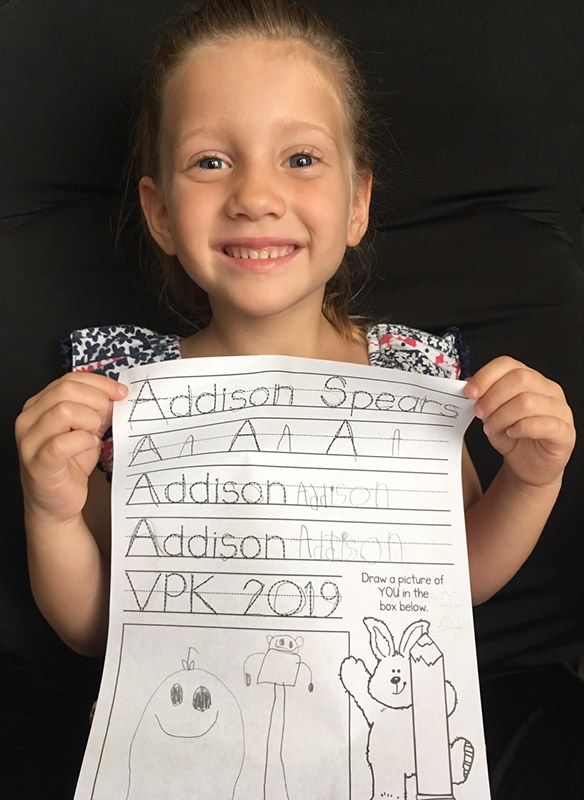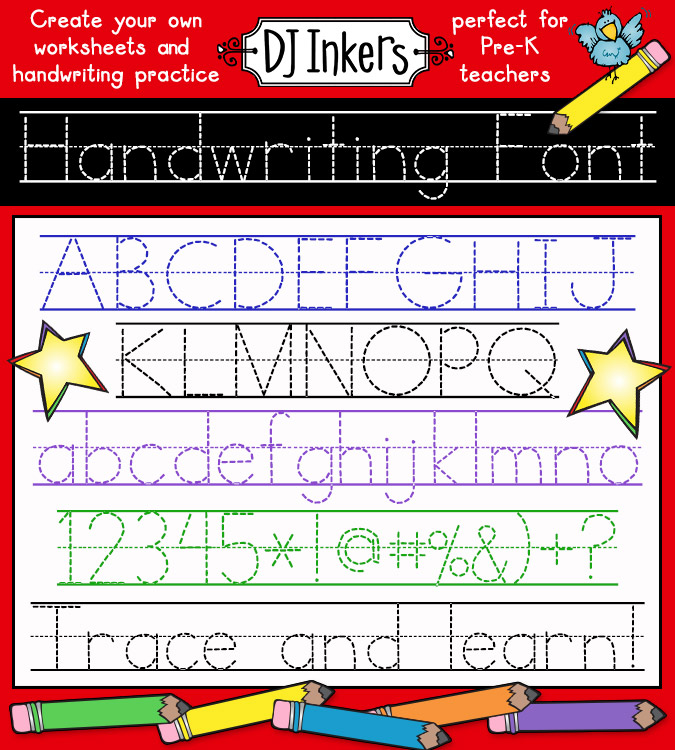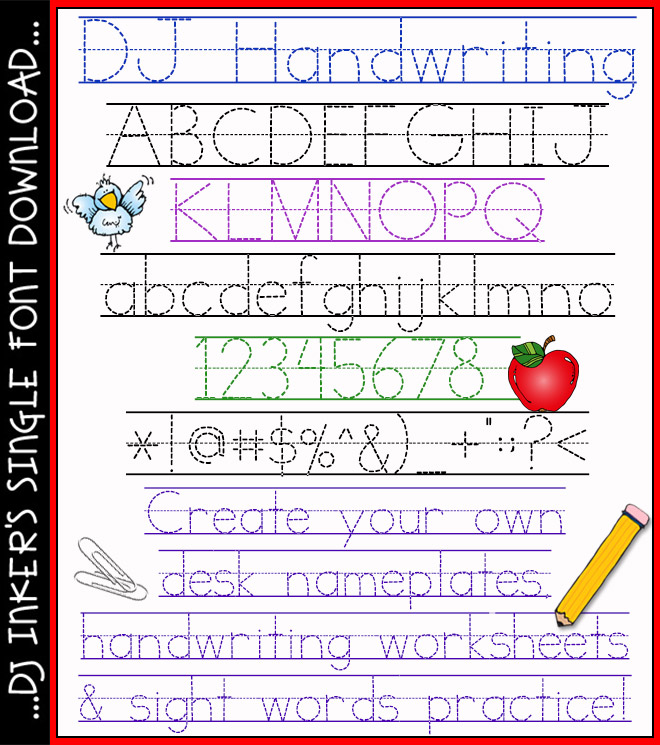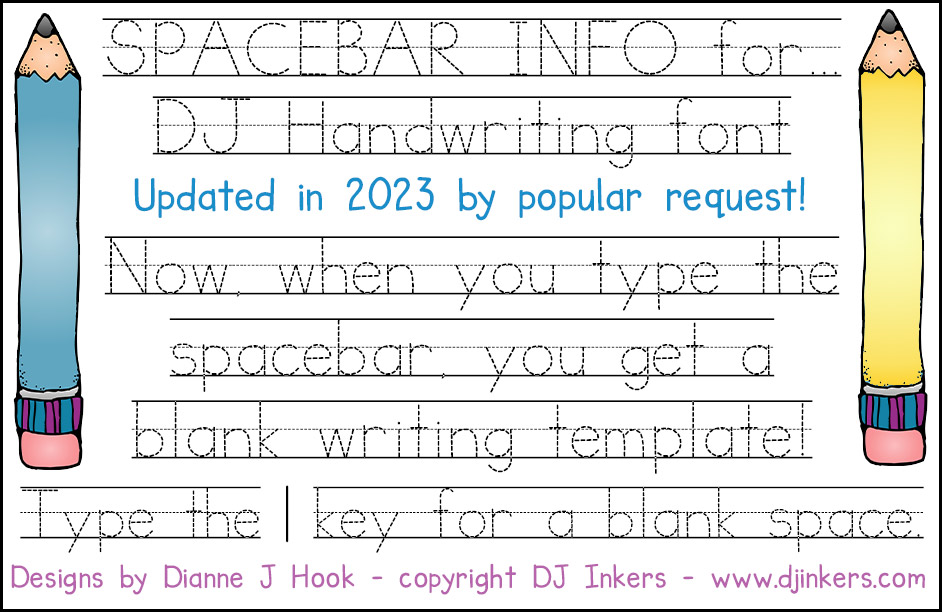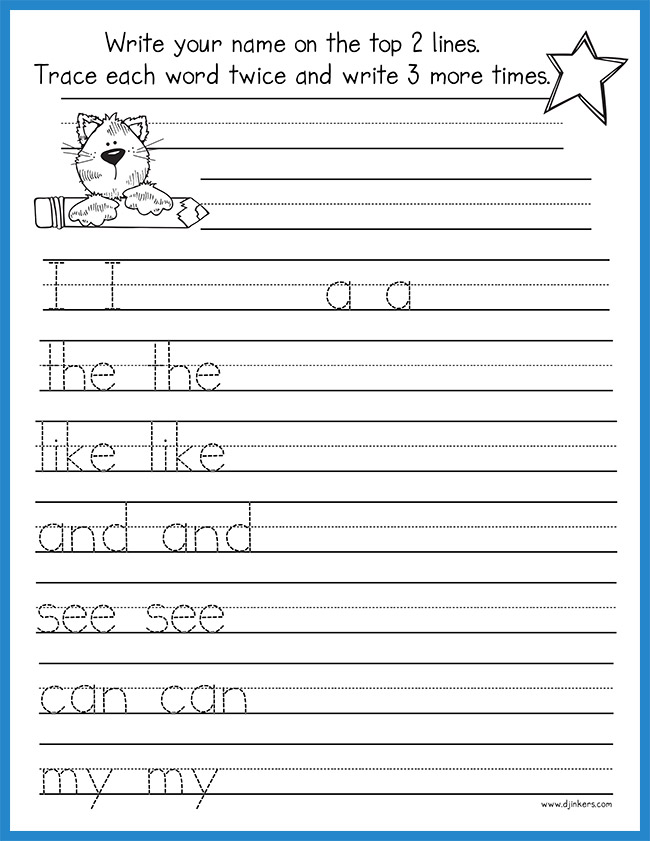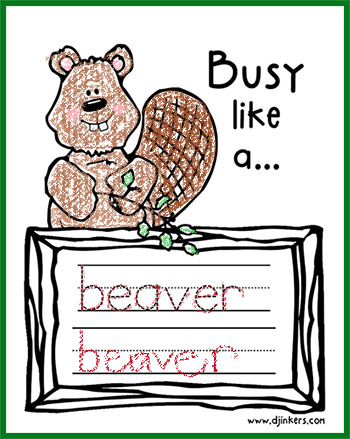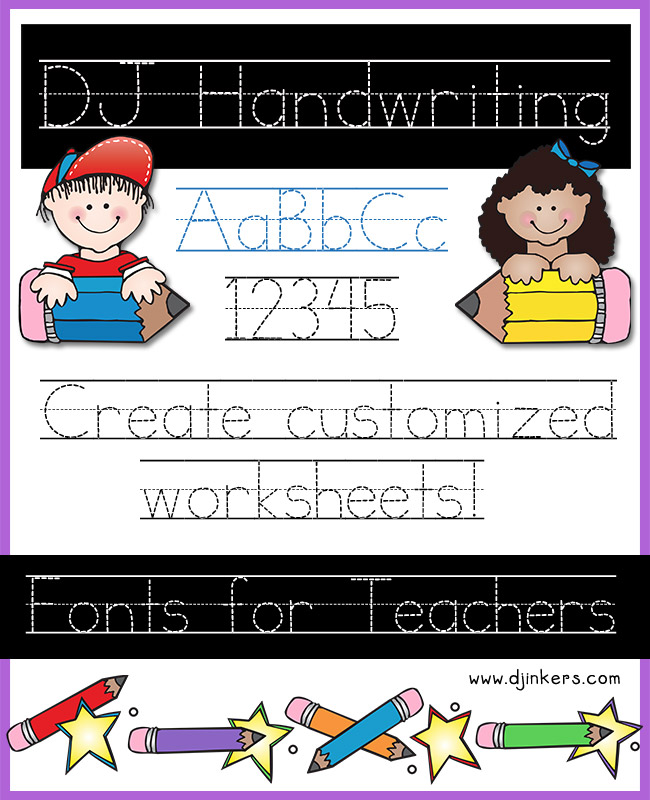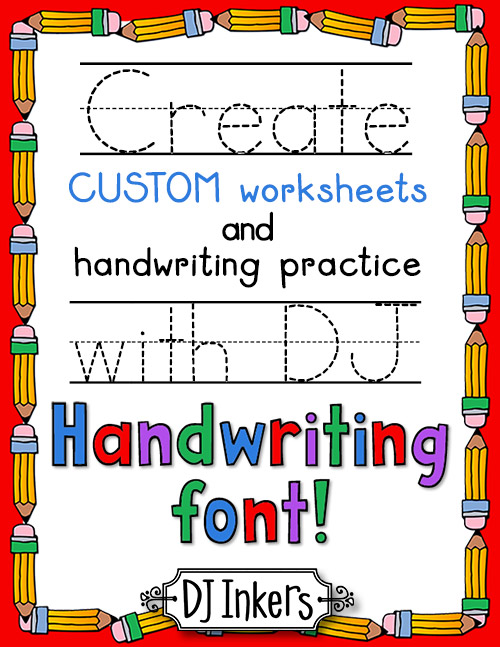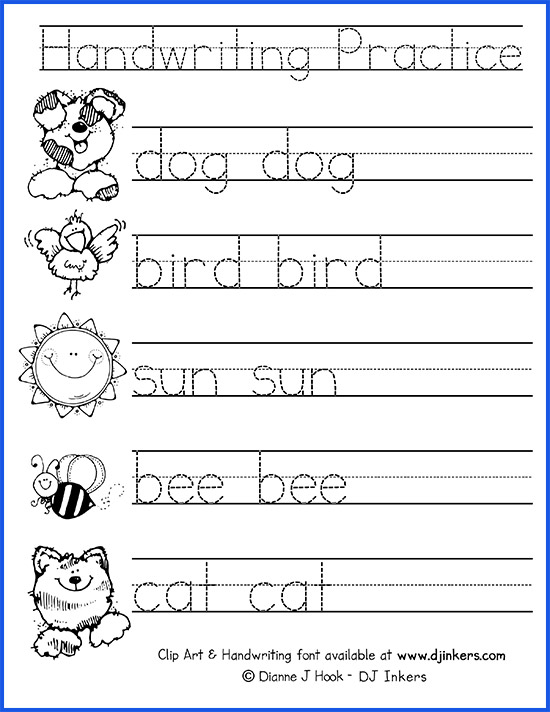
"I use the handwriting font ALL THE TIME! Love it!"
"I've been using this with my own kids, one of the few things I bought for personal use. They love practicing their writing :-)"
"Excellent product! I use this all the time in my first grade classroom!"
"This is the best handwriting font out there!"
"This is the perfect font for my first grade classroom. I LOVE that the letters are formed appropriately... no tails on the 't'! Easy to use and great installation directions. Thank you for a great product!"
"I love that this font will be a great way for me to create worksheets for my students. This will allow me to really create wonderful worksheets for my Kindergartners to practice their handwriting."
"This font is perfect for helping my students work on their orthographic skills!"
"Makes creating worksheets a breeze! Thank you!"
"This was a great resource! I needed to make something specific to help a student struggling with writing and this was perfect. Thank you!"
"This will save me so much time! I've been doing this by hand for every spelling lesson. LOVE this font!"
"Awesome font for making your own resources with"
"My go-to lined font to use in my kindergarten classroom! Thank you!"
"This has been a lifesaver! My 1st graders came in not knowing how to properly form letters, even in their names. This has allowed me to create handwriting pages geared to each student with their names. I have seen the difference within the week."
"Thank you for this really cool Kindergarten font!"
"Very good and easy to use. I like the font for making handwriting practice sheets."
"Perfect for creating name practice for my students"
"Very good resource for students struggling with handwriting."
"I use this font all the time for my kinders. It's very helpful!"
"Great font for writing practice! I use this to create student name practice"
"I love this font! Thank you for making handwriting and writing projects so easy to create!"
Love all of your resources but the level of access this created for the student's in my classroom makes learning achievable! Thank you!
Very helpful to use with my elementary special education class!